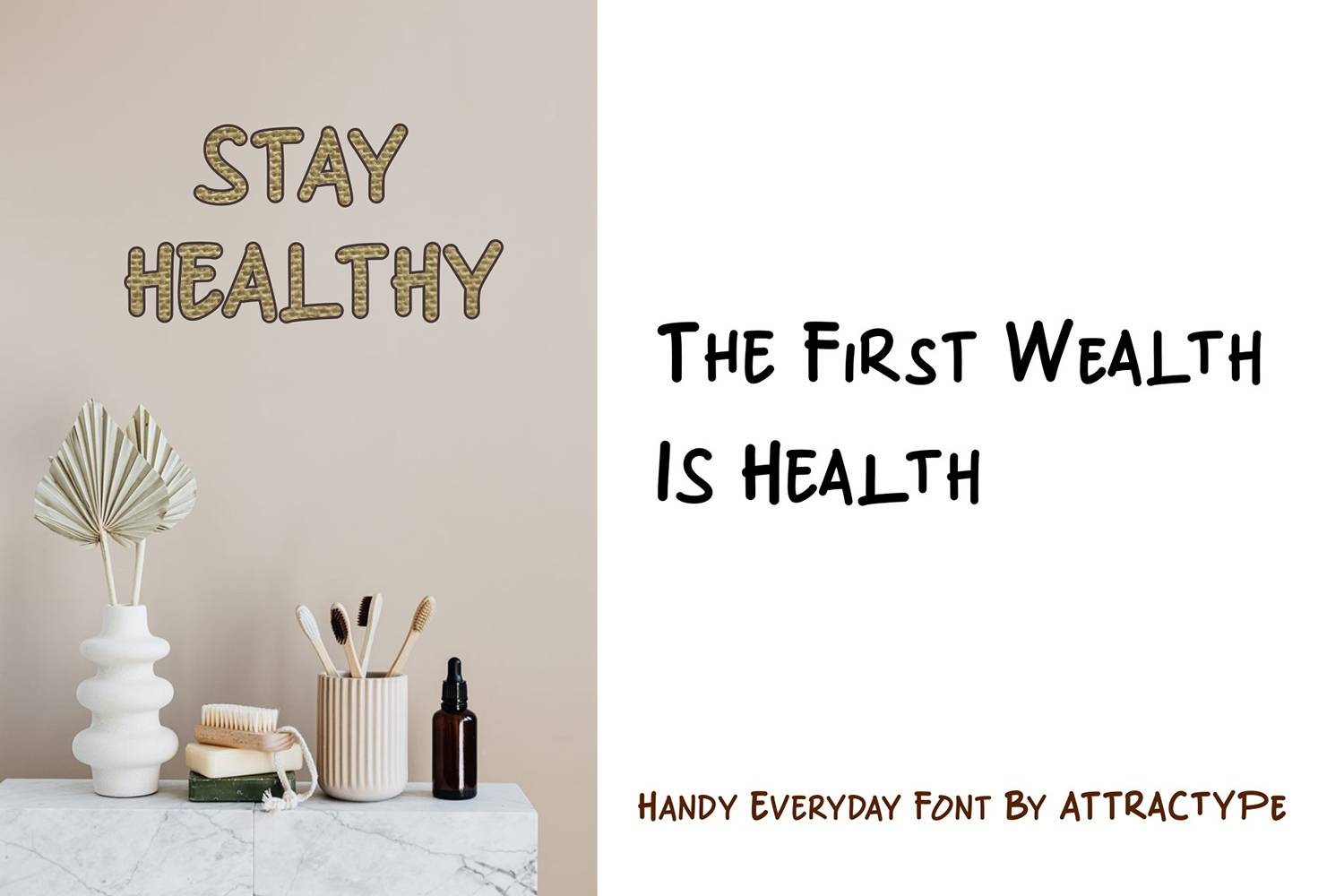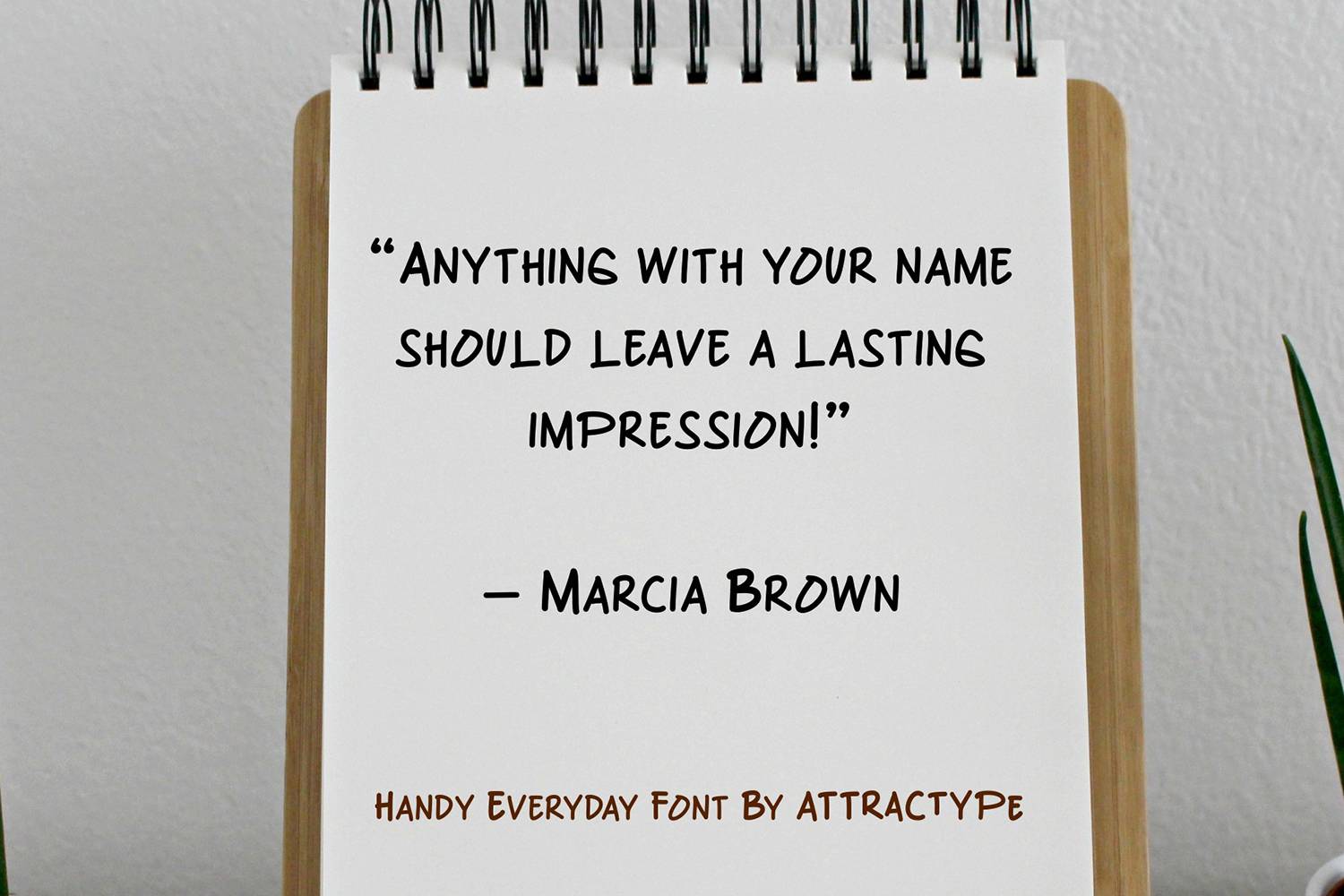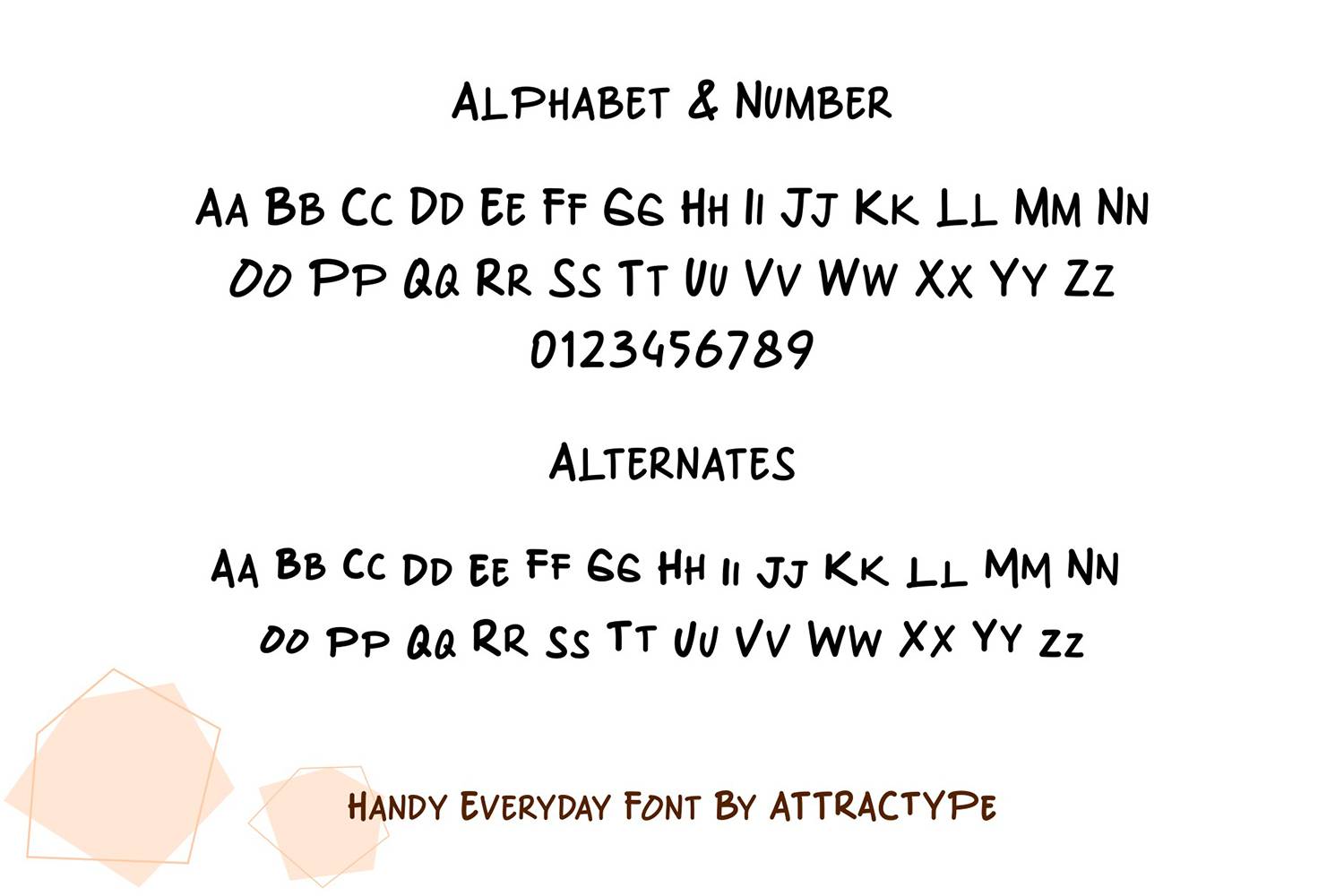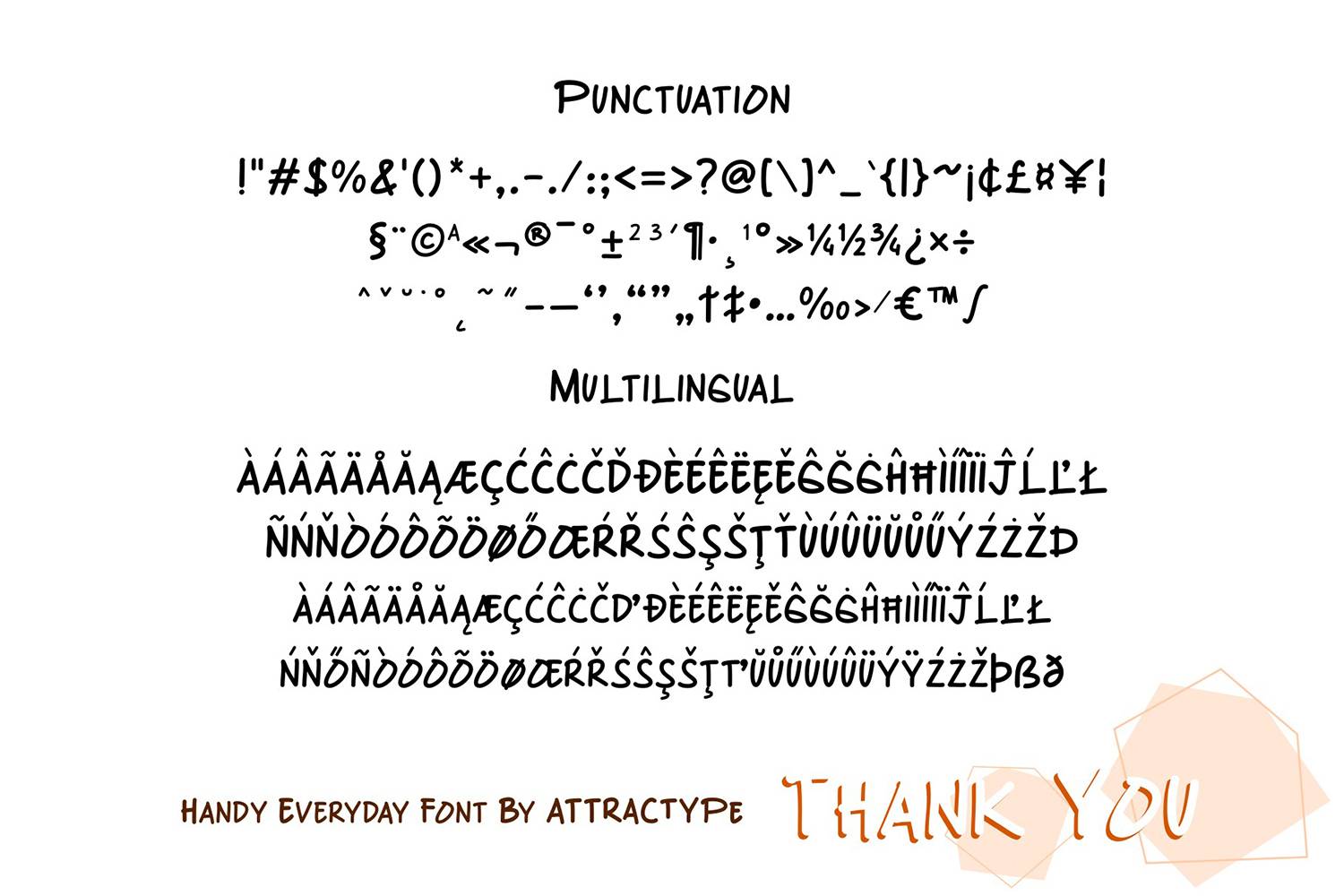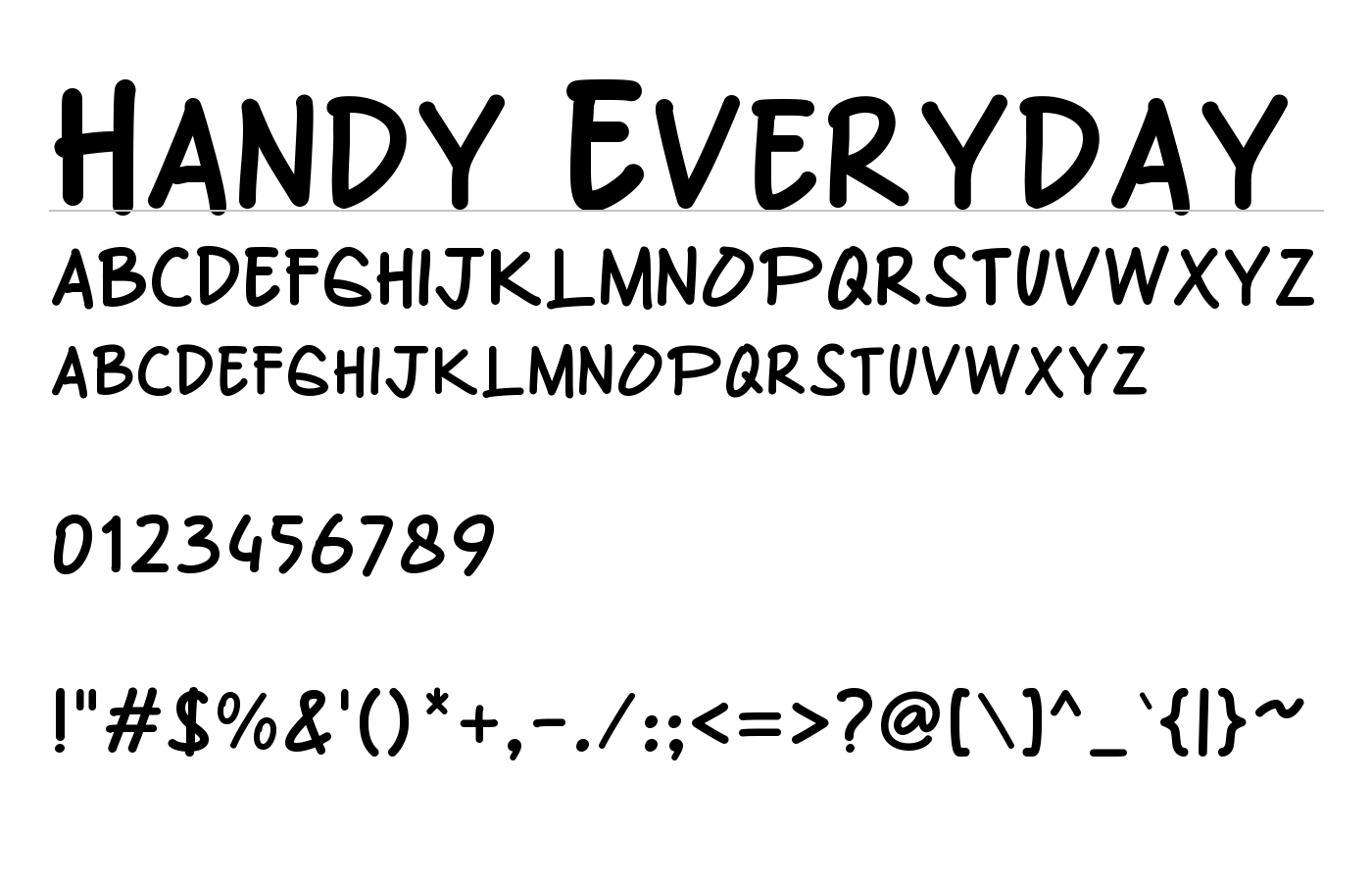
Handy Everyday is a casual, handwritten sans serif font with a friendly and approachable feel. Its rounded, slightly playful letterforms and consistent stroke weight make it perfect for informal designs like children’s books, personal branding, or creative projects needing a warm, human touch. This font works well for headlines, logos, and designs aiming to communicate friendliness and simplicity.
Handy Everyday Font
About Handy Everyday Font
| Font family | Handy Everyday Font |
| Release date | 2022-02-10 |
| Designer | Saefulloh |